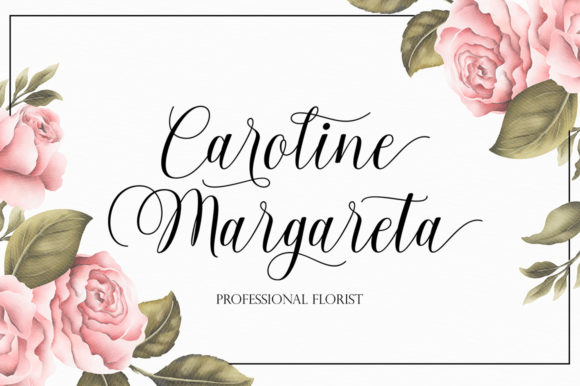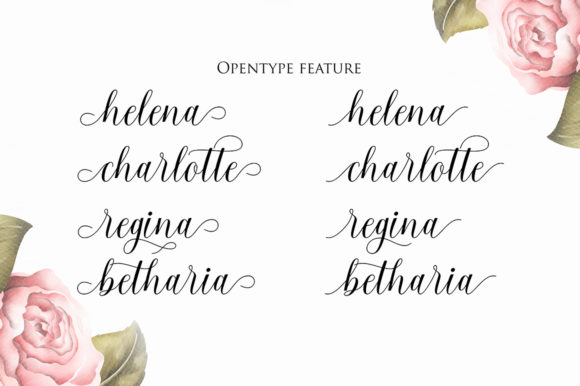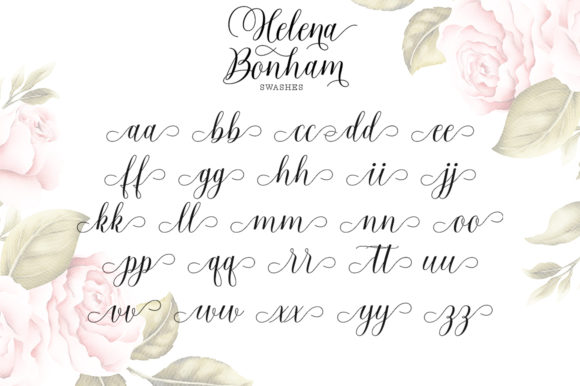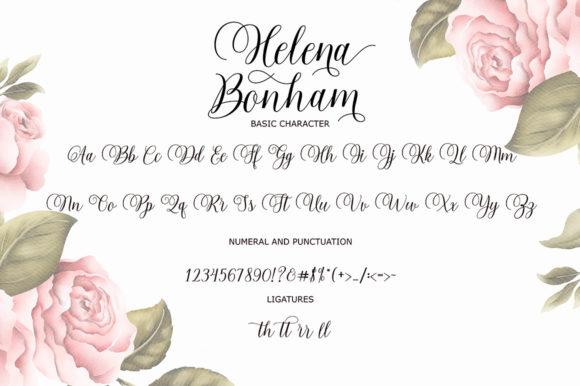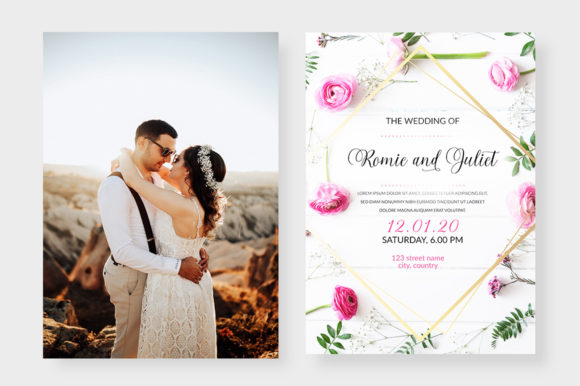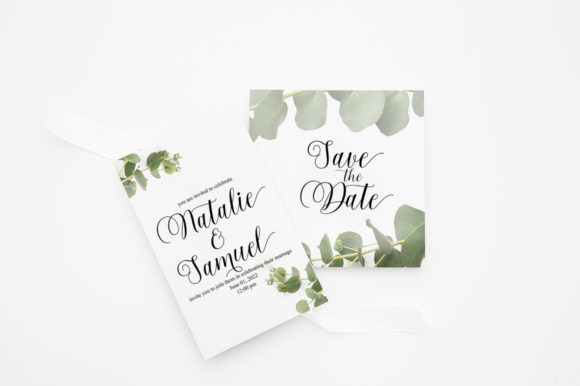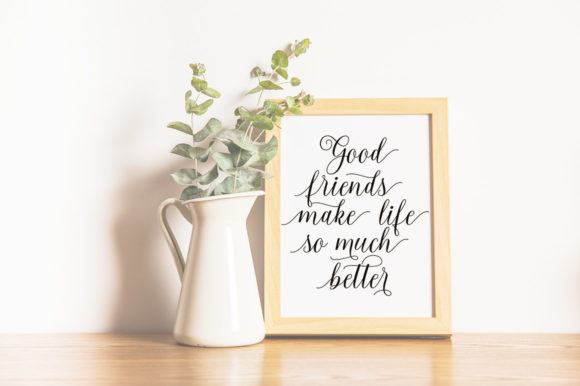
Helena Bonham Font
About Helena Bonham Font
Helena Bonham is a modern and elegant calligraphic script font that includes beautiful characters. This decorative copper script features a modern touch, and is designed with a high level of detail to deliver an incredibly stylish font experience.
Helena Bonham 385 characters and alternatives, including various language options!